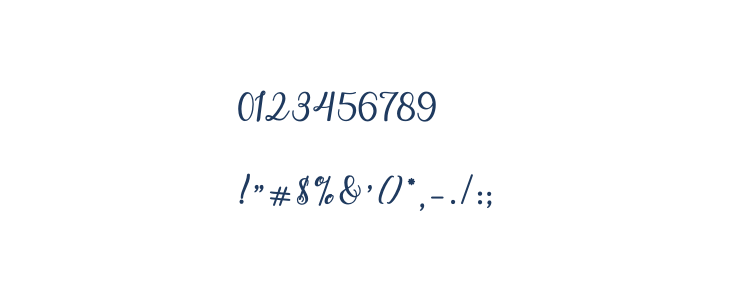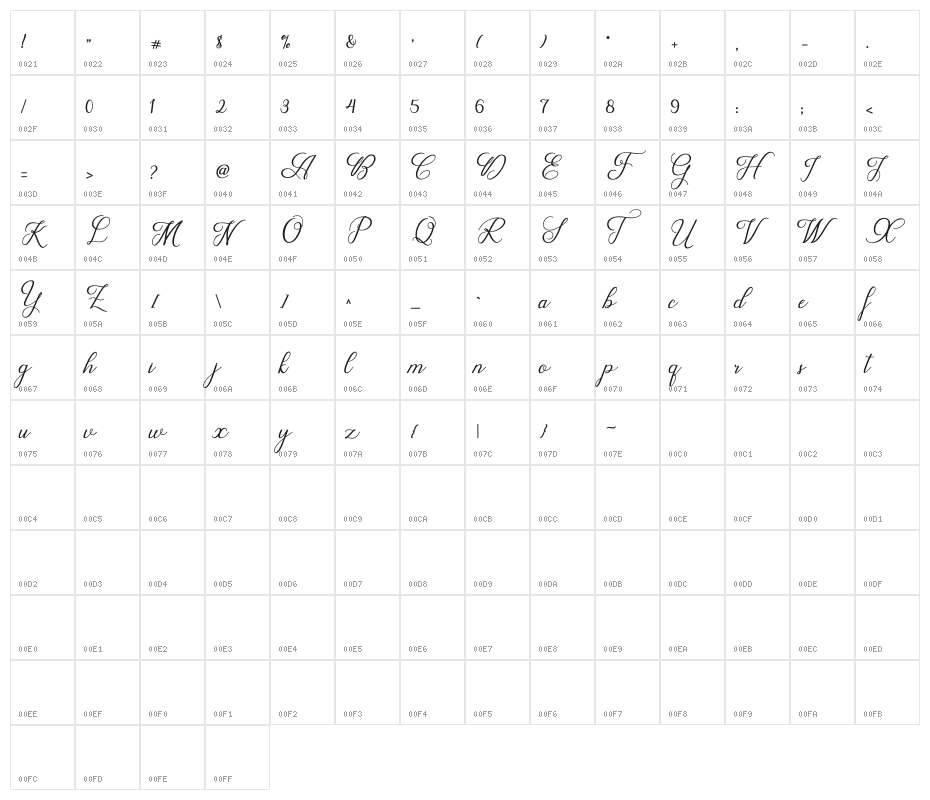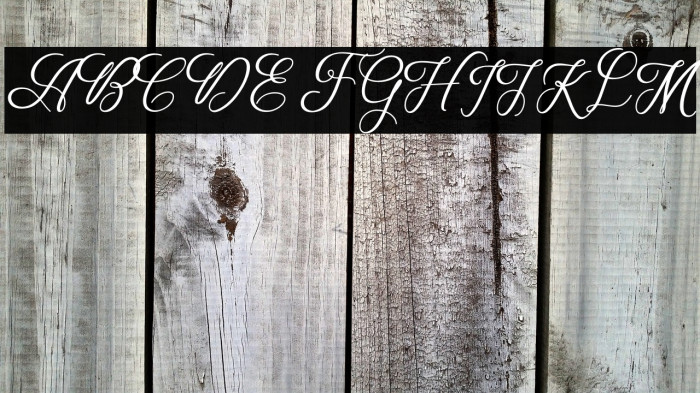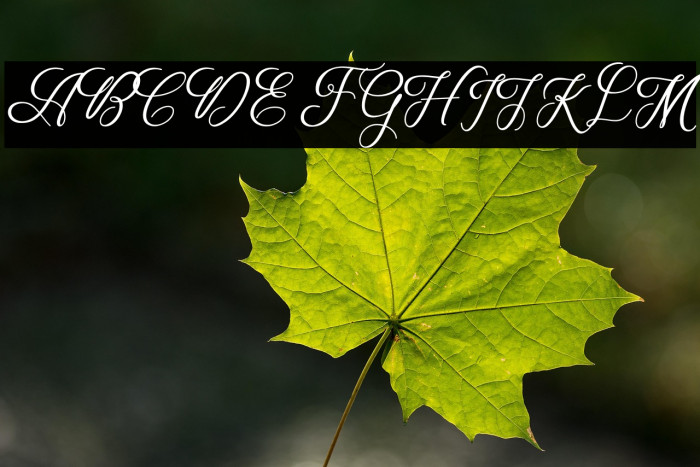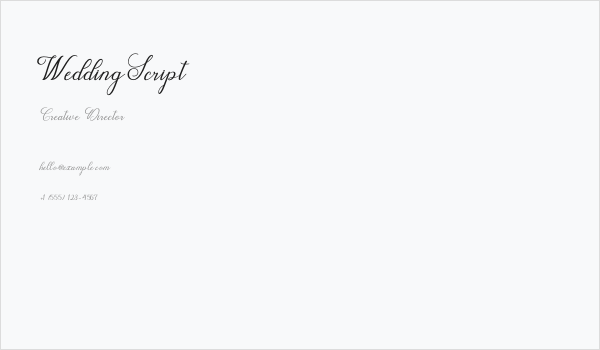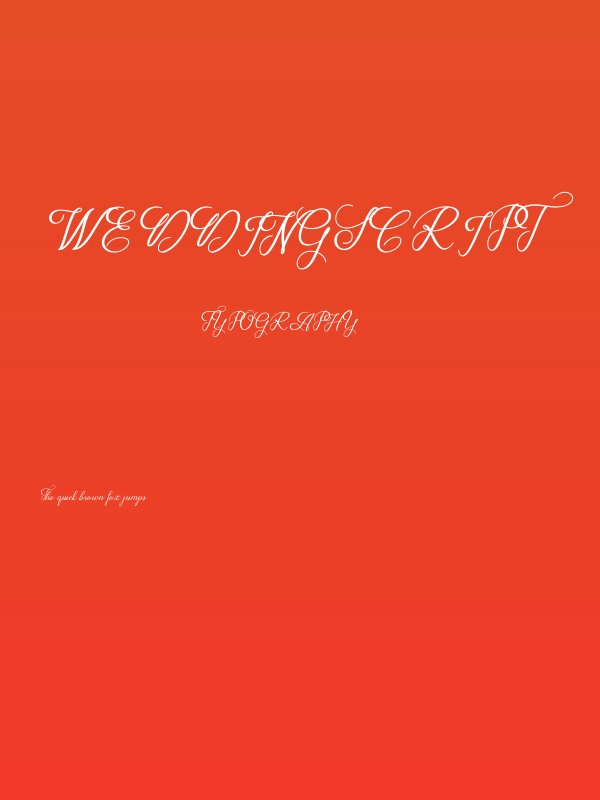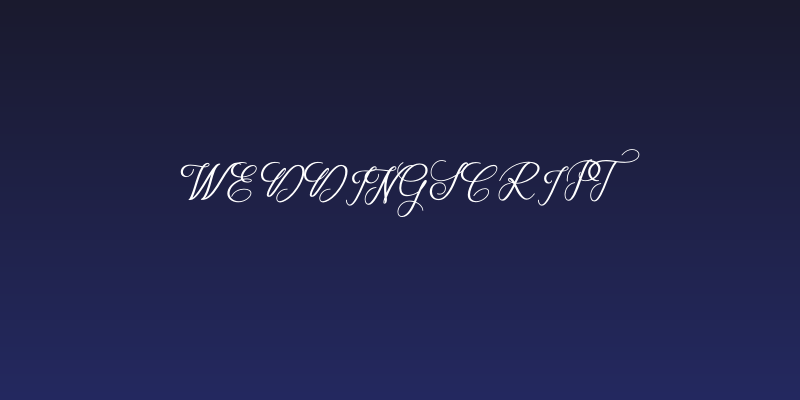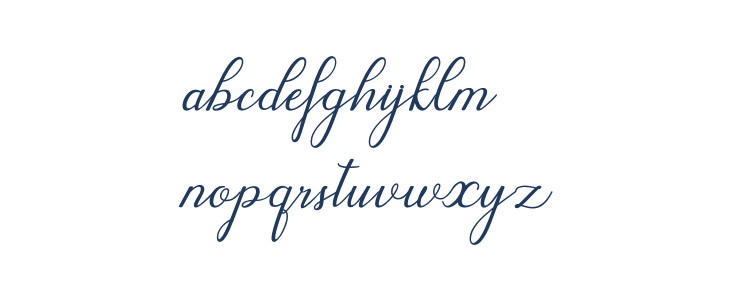
WeddingScript Font
WeddingScript Description
This elegant script font features flowing, interconnected letters that evoke a sense of sophistication and romance. The uppercase characters are ornate and decorative, with intricate loops and flourishes that add a touch of grandeur. The lowercase letters maintain a smooth, cursive style, ensuring readability while preserving the font's graceful appearance. Numbers and special characters are designed to complement the overall aesthetic, making this font ideal for formal invitations and elegant branding. The consistent stroke width and delicate curves give it a refined and polished look, perfect for adding a personal touch to any project.
| Overall Style | Elegant, Romantic |
| Use Case | Invitations, Branding, Stationery |
| Proposed Projects | Ideal for wedding invitations, elegant branding, formal event programs, and personalized stationery. |